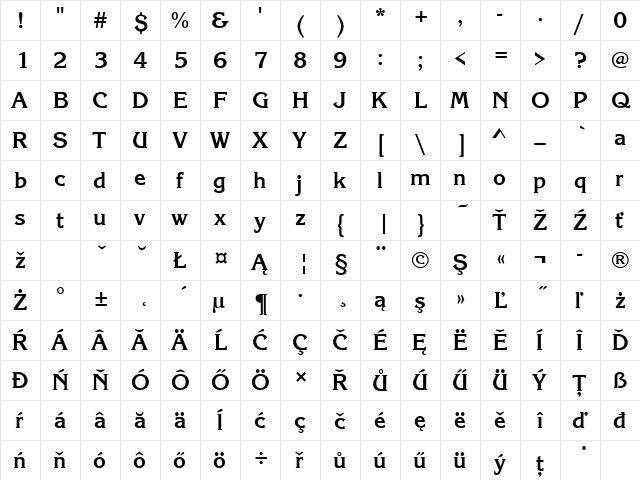
KorinnaItcTEE Bold Font Preview
KorinnaItcTEE Bold
Design Context for KorinnaItcTEE Typeface
KorinnaItcTEE takes a measured approach to typography — its balanced proportions and neutral character make it a reliable workhorse for both digital and print work. Its bold stroke weight gives it real presence on the page.